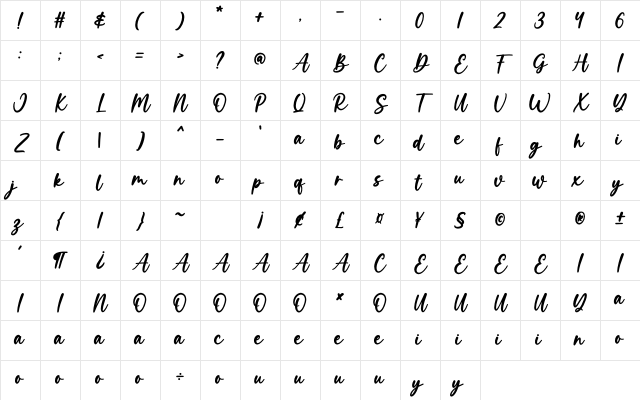
Complete Winterland Regular glyph index. Displaying only characters natively supported by Winterland Regular font.
Winterland is a composed and adaptable typeface that performs quietly and consistently across a wide range of design contexts.